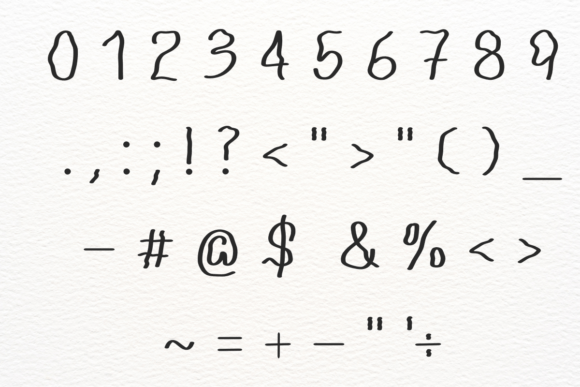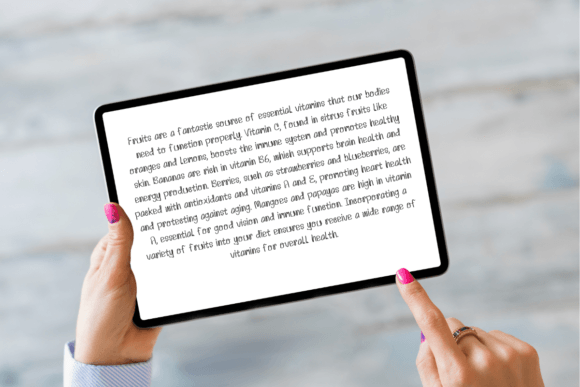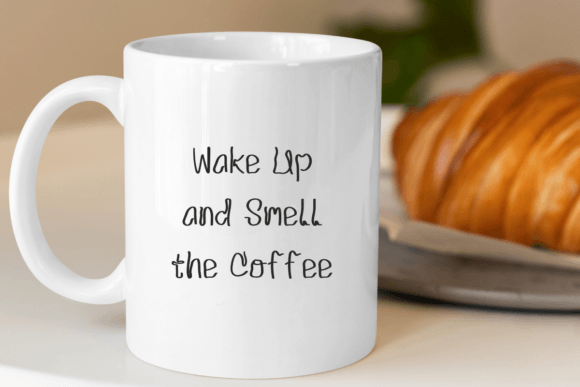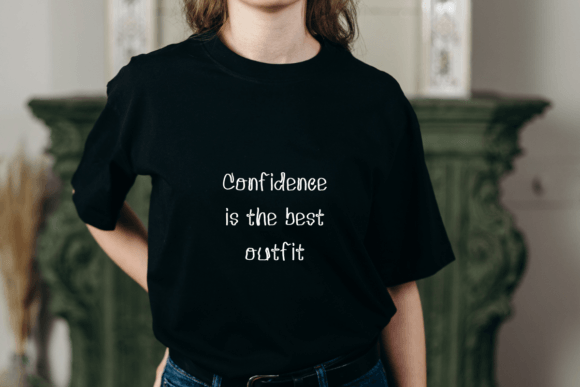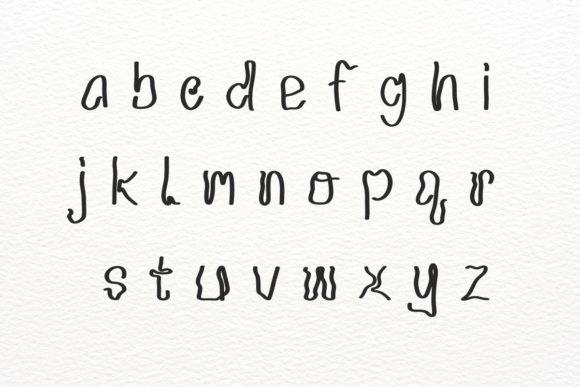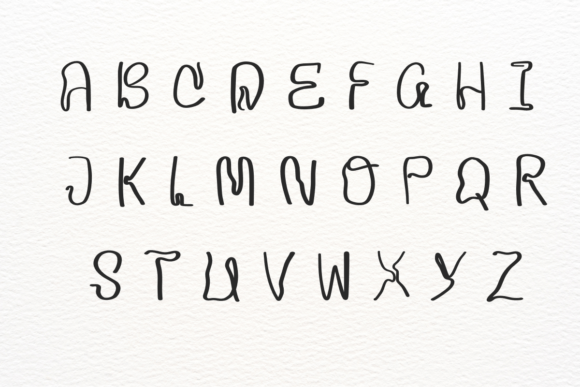
Introduction to Roxane Font
Roxane is a messy handwritten font, and use it to create spectacular designs.
It would be awesome for your fun projects such as Easter, back to school, wedding, party decoration, invitations, Fall, Halloween, Christmas, posters, blogs, clothing, child-related designs, greeting cards, invitation card, baby shower cards, social media posts or anything that needs a friendly touch .
Roxane Font offers exceptional quality and versatility, making it a valuable addition to your design toolkit. Whether you’re creating for personal projects or commercial use, Roxane Font delivers professional results.